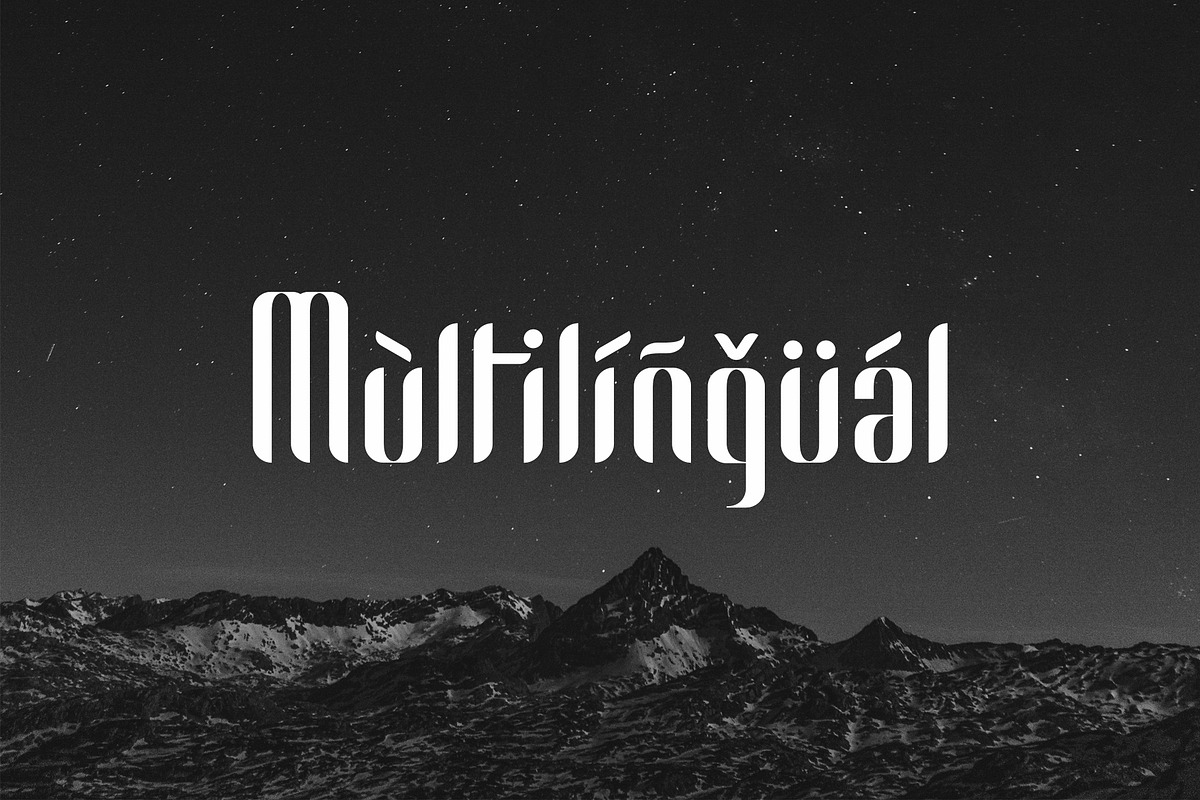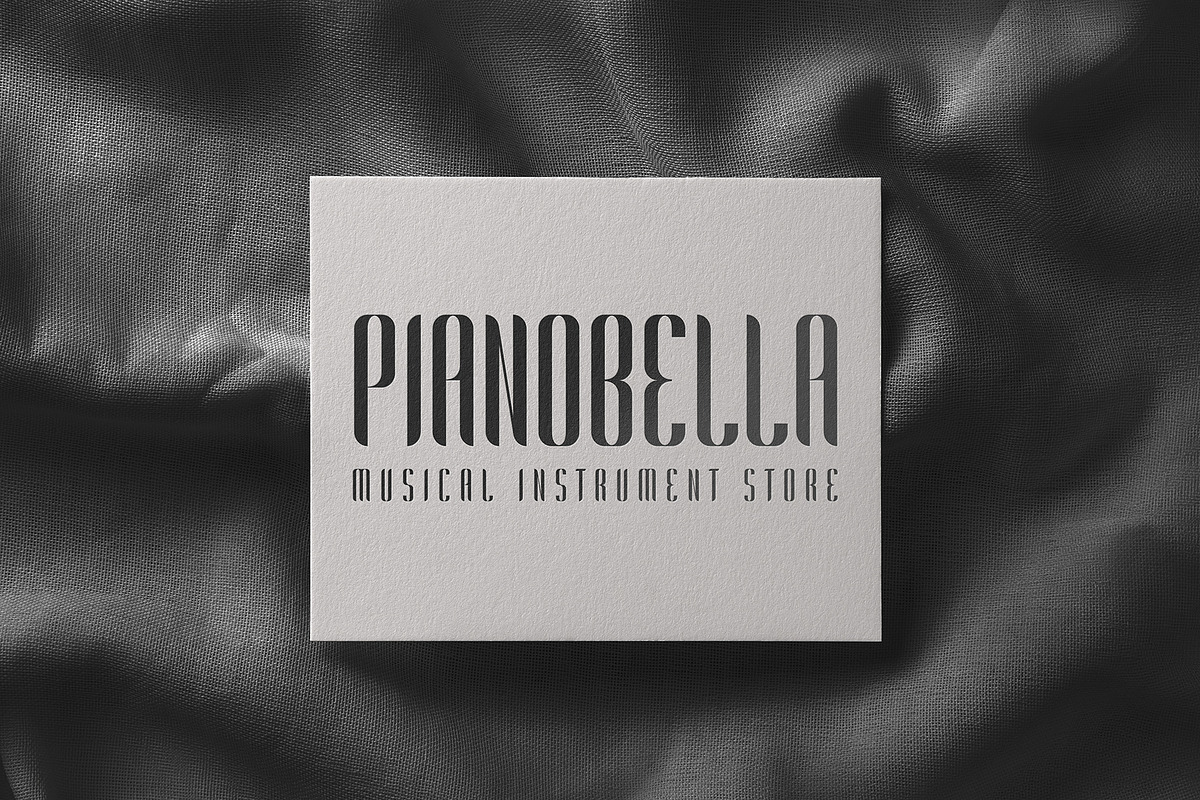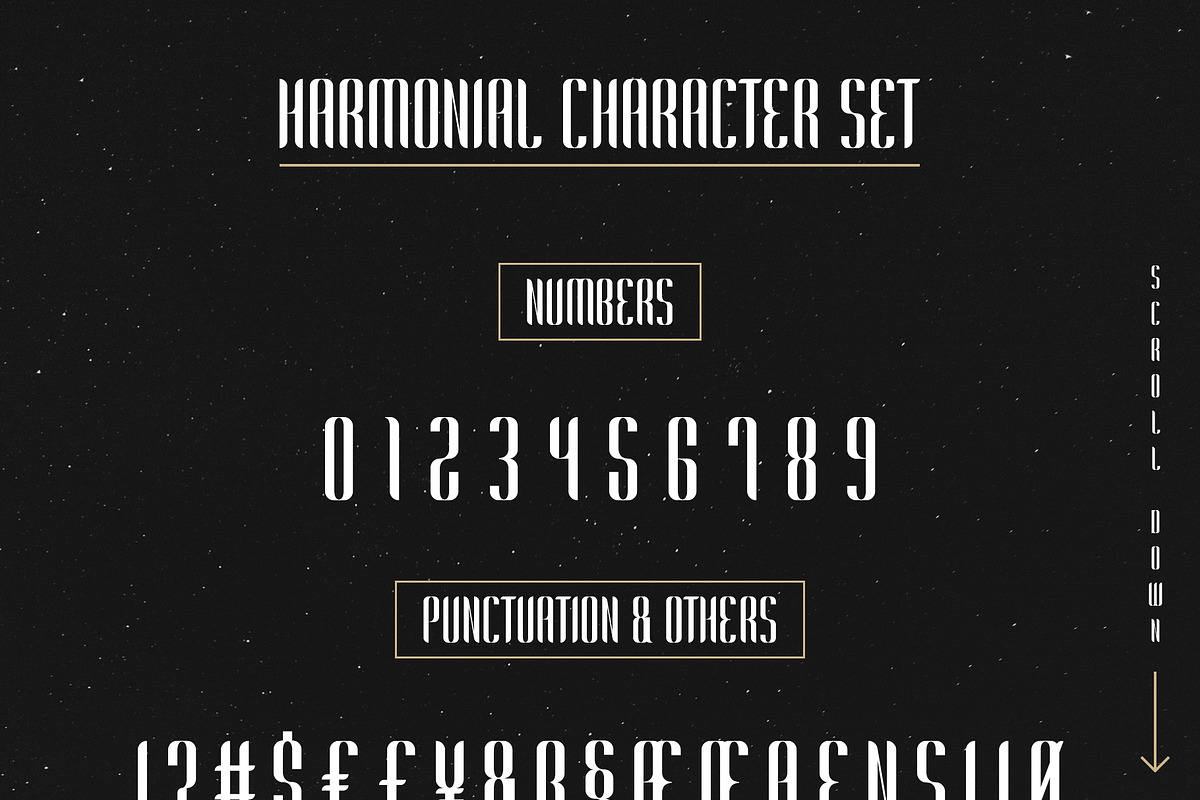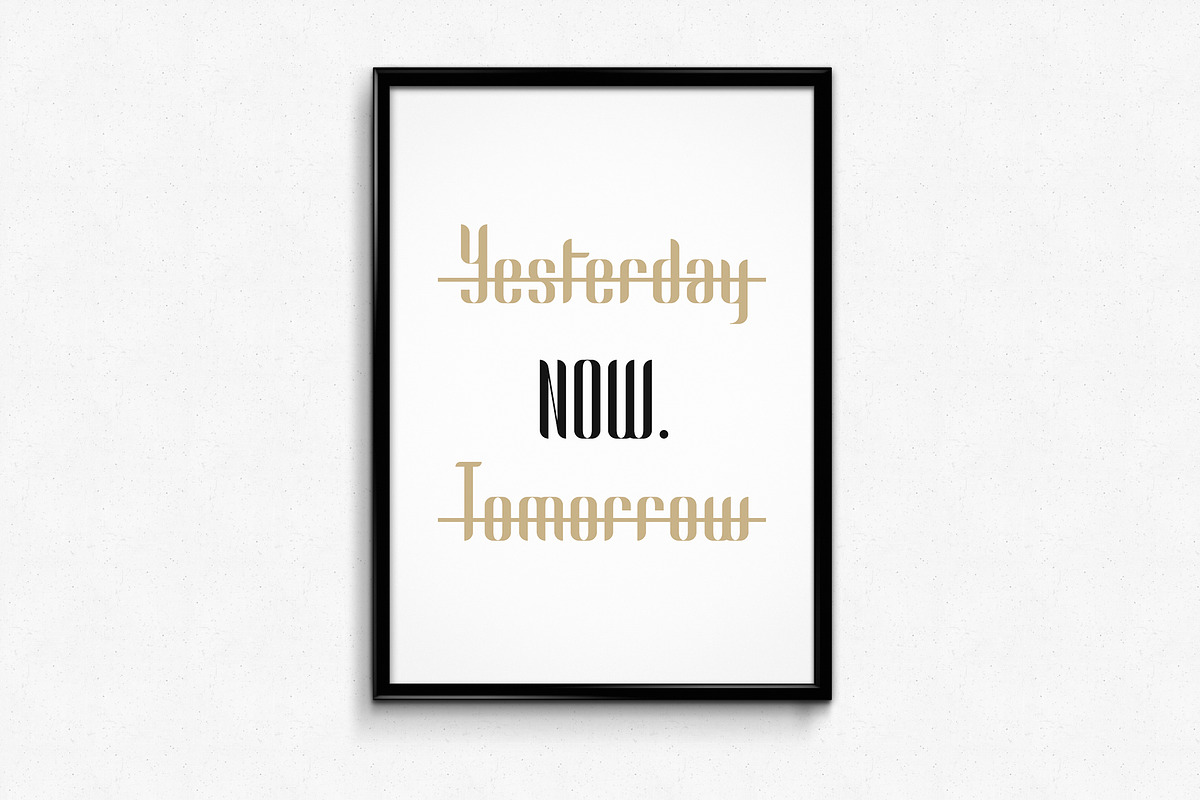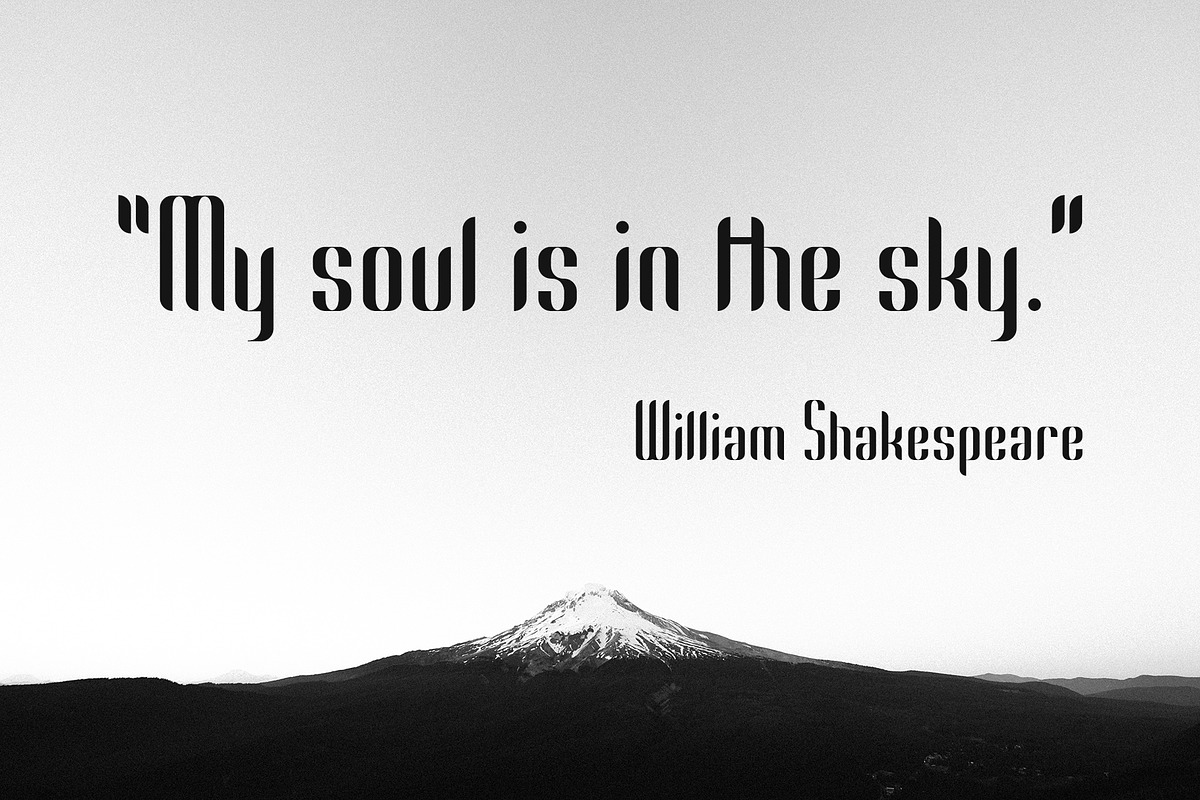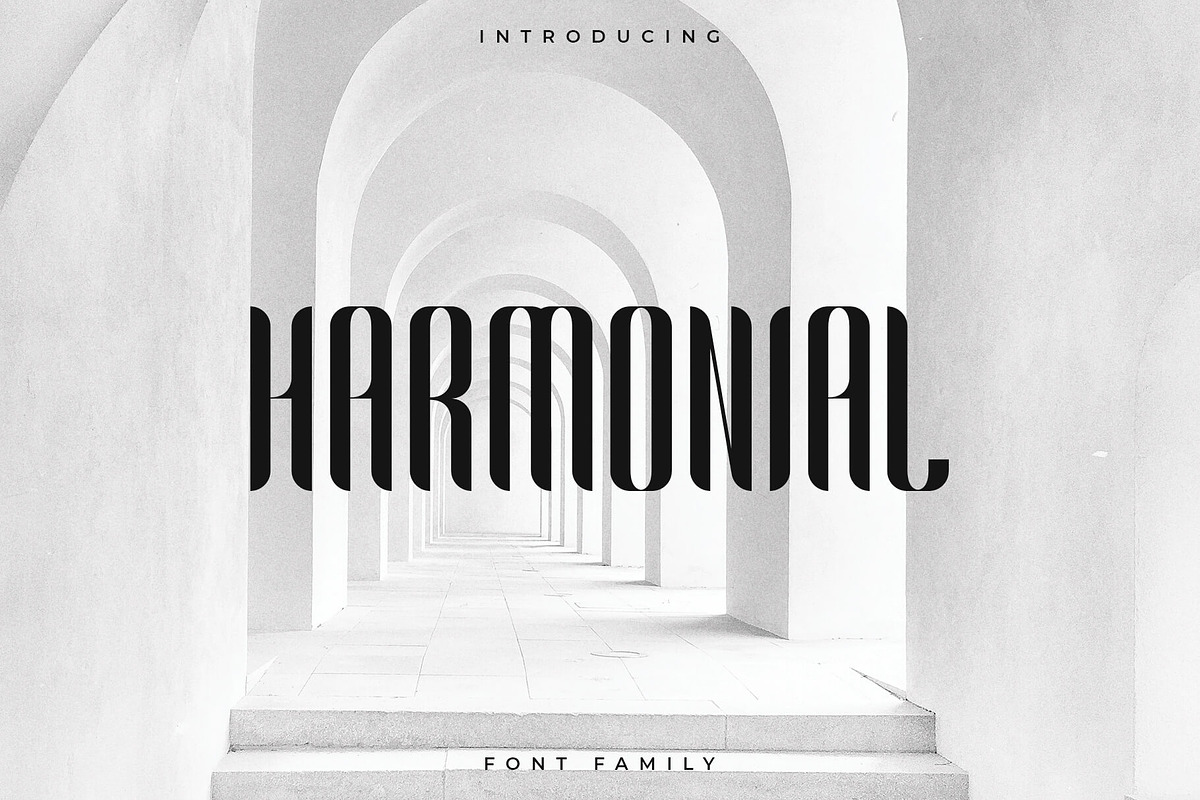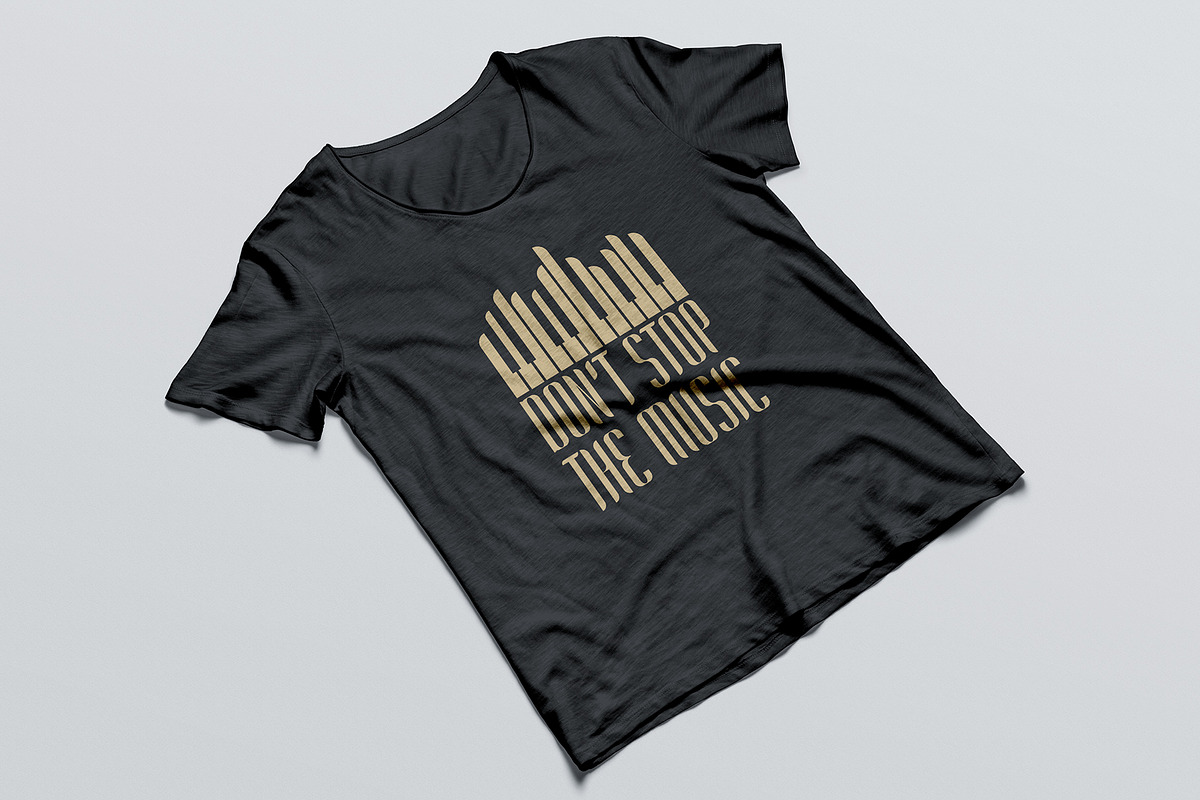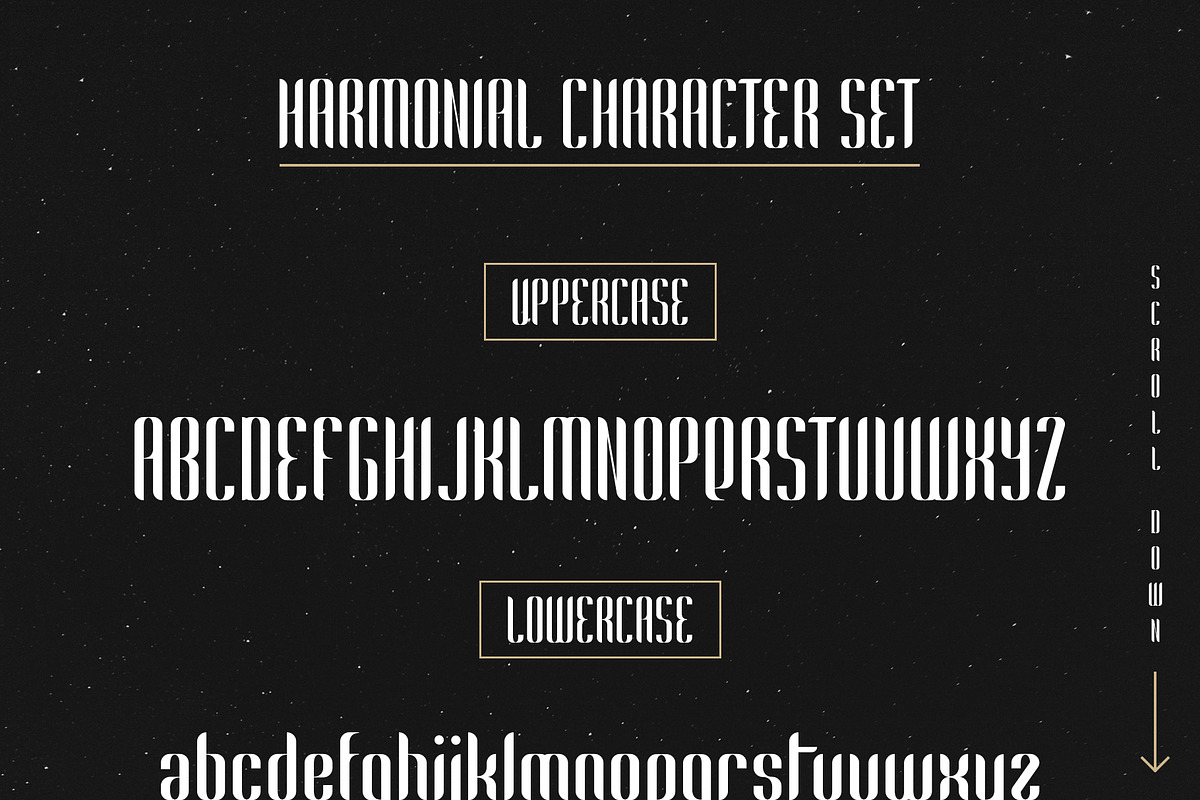
Harmonial Font Family - Sans Serif
Harmonial is an elegant and clean sans serif font. It's a versatile font family designed for strong, classic branding. Harmonial works great in any branding, logos, magazines, videos, product packaging, website headers, clothing designs and much more.